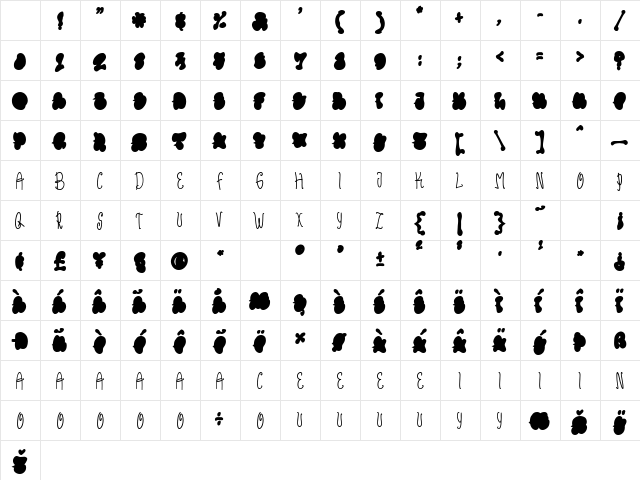
Complete Rollbeat Graffiti Fill Regular glyph index. Displaying only characters natively supported by Rollbeat Graffiti Fill Regular font.
Rollbeat Graffiti Fill is a composed and adaptable typeface that performs quietly and consistently across a wide range of design contexts.